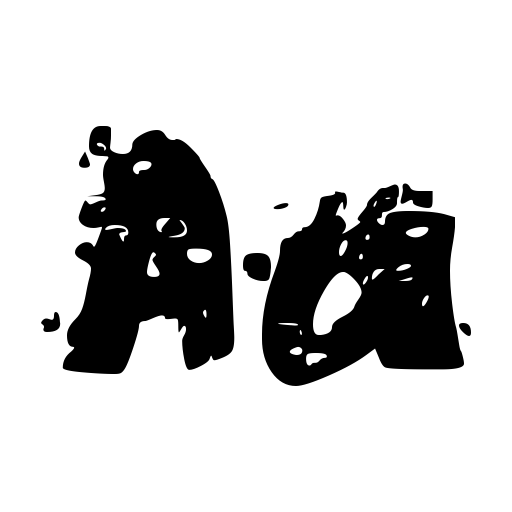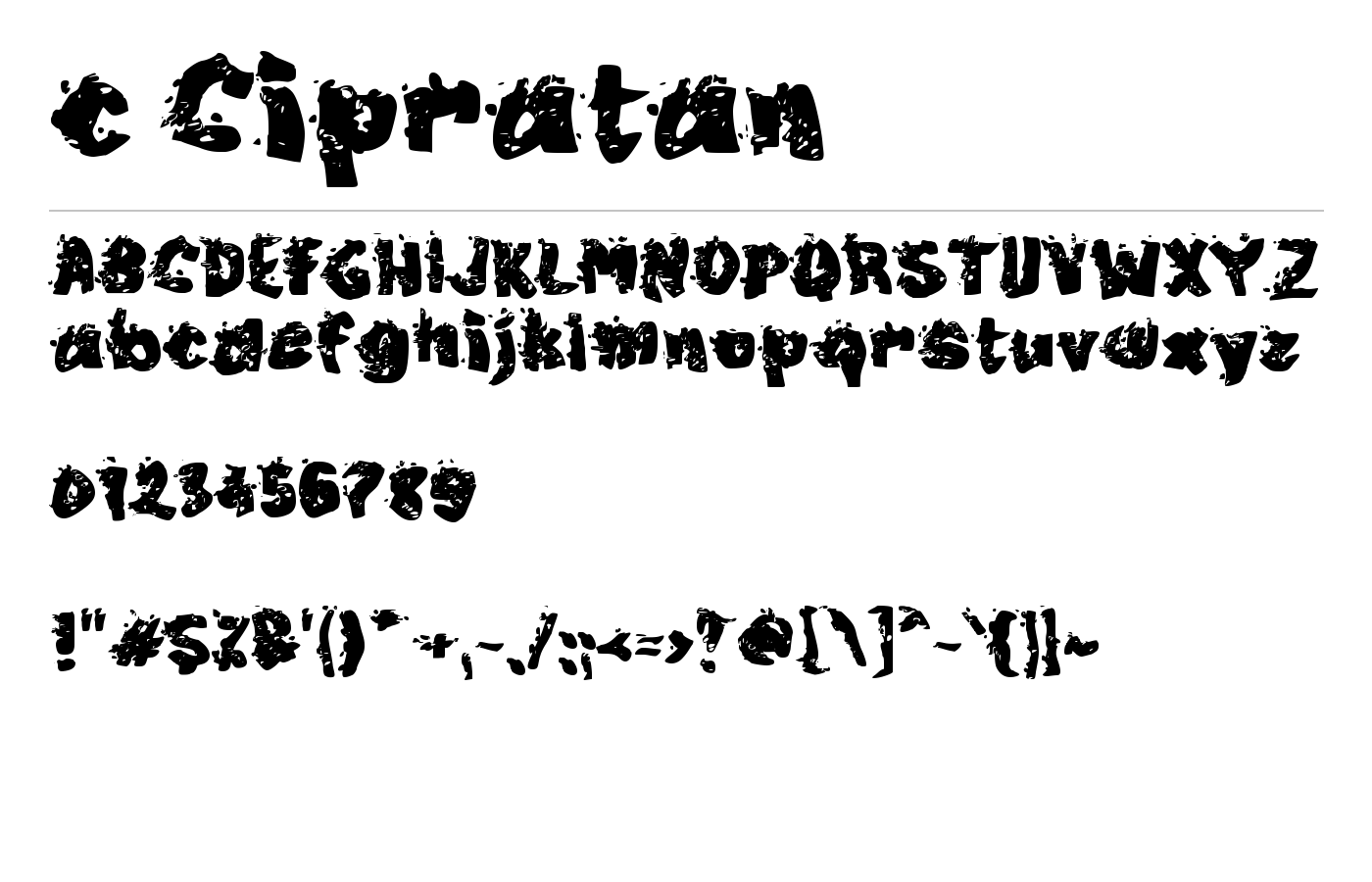
Cipratan is a bold, grungy display font with rough, irregular edges and a playful, distressed texture that gives it a handmade, organic feel. Its wide, chunky letterforms and uneven shapes make it ideal for creative projects needing a strong, eye-catching personality, such as posters, logos, or edgy branding. This font works best in headline or decorative roles where its unique style can stand out and add character.
c Cipratan Font
About c Cipratan Font